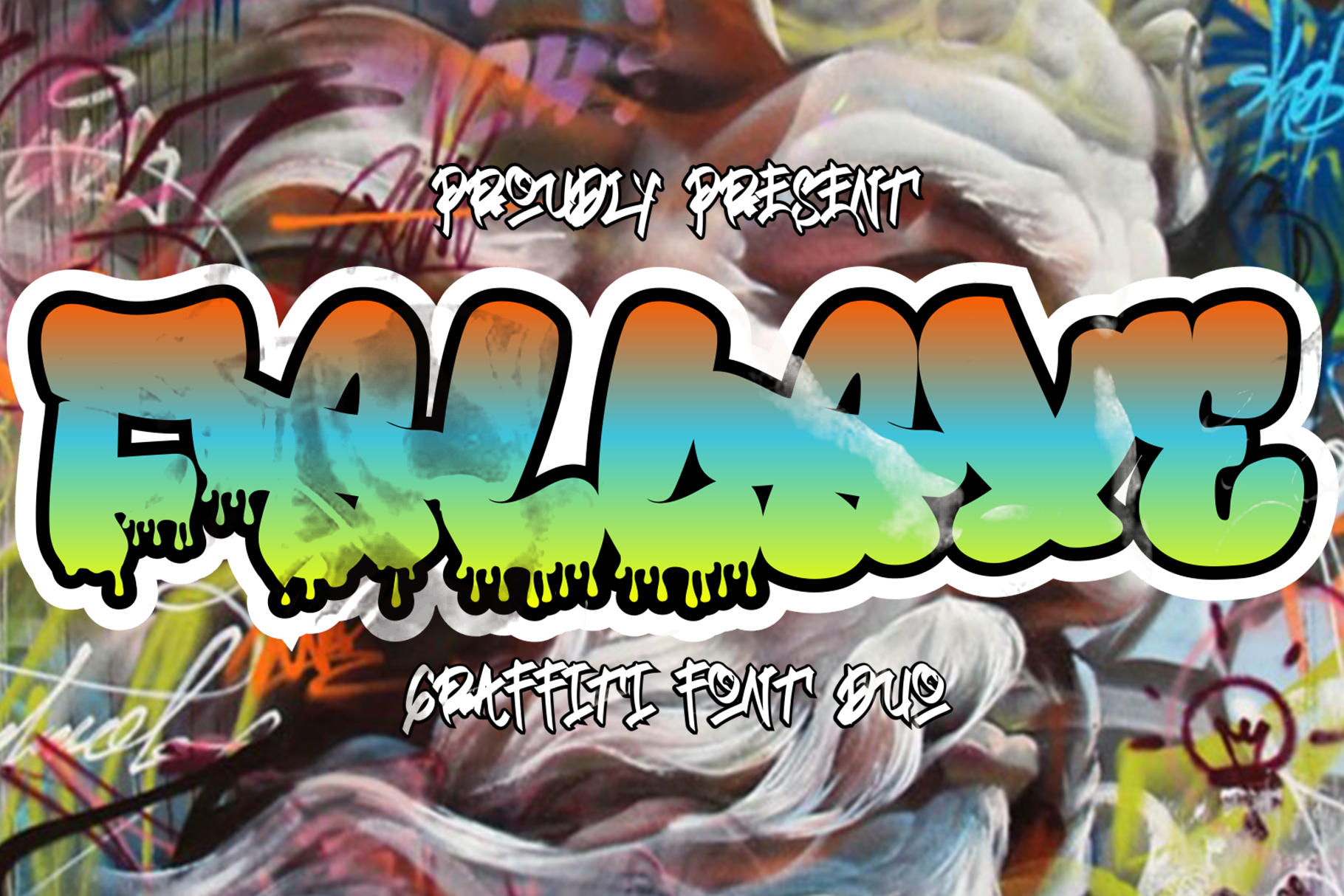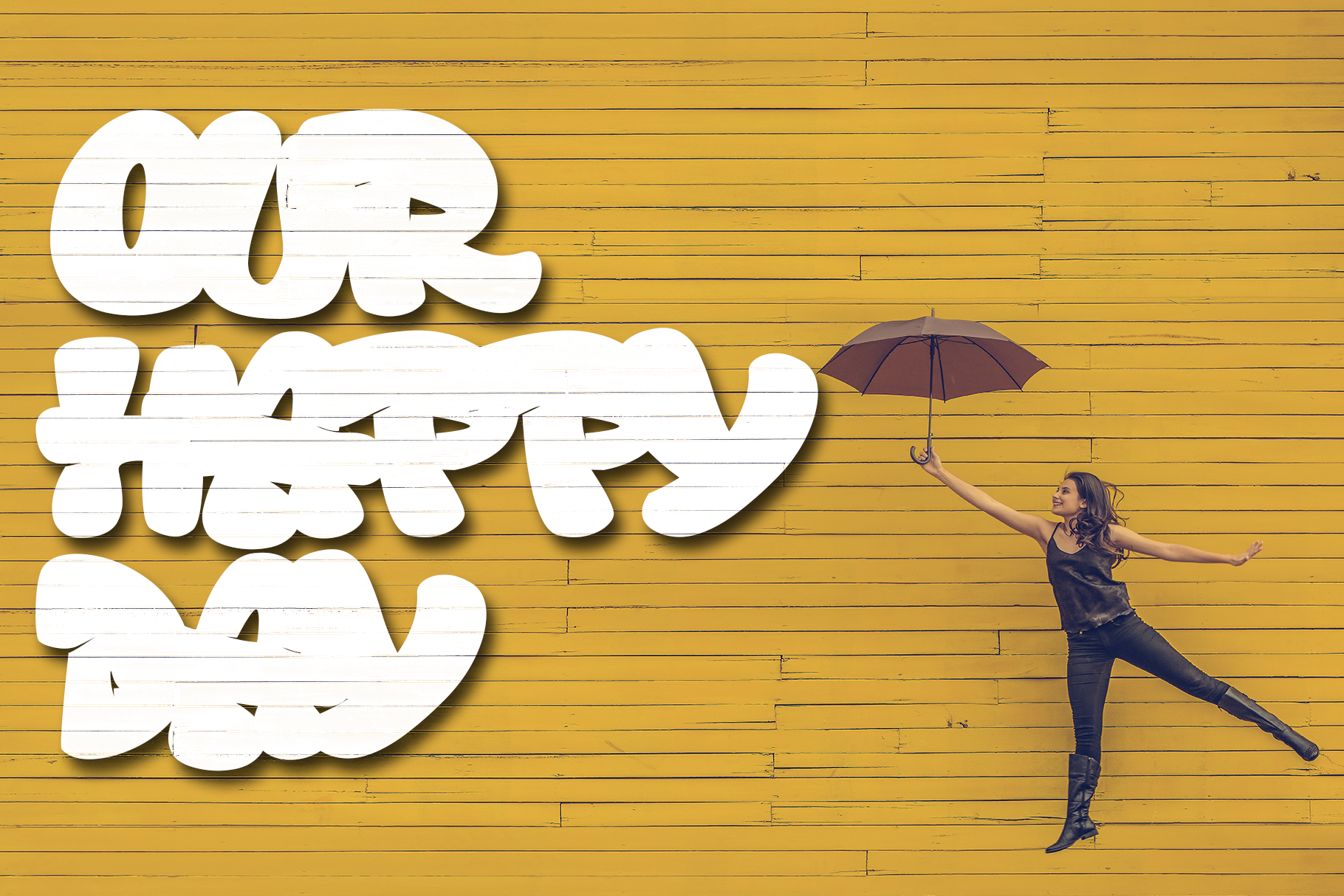
Fallaxe Graffiti is a spectacular, with bold graffiti display font, there are two style font inside, normal style and dripping style. It will elevate a wide range of design projects to the highest level, be it branding, headings, wall art illustration, apparel, labels, and much more!